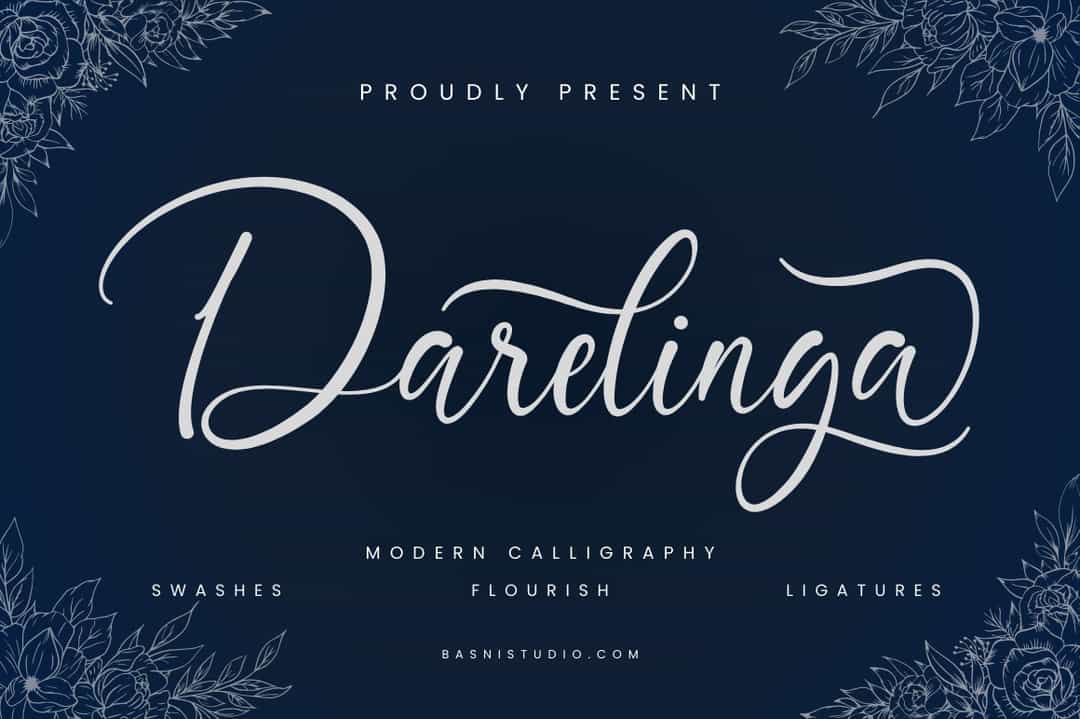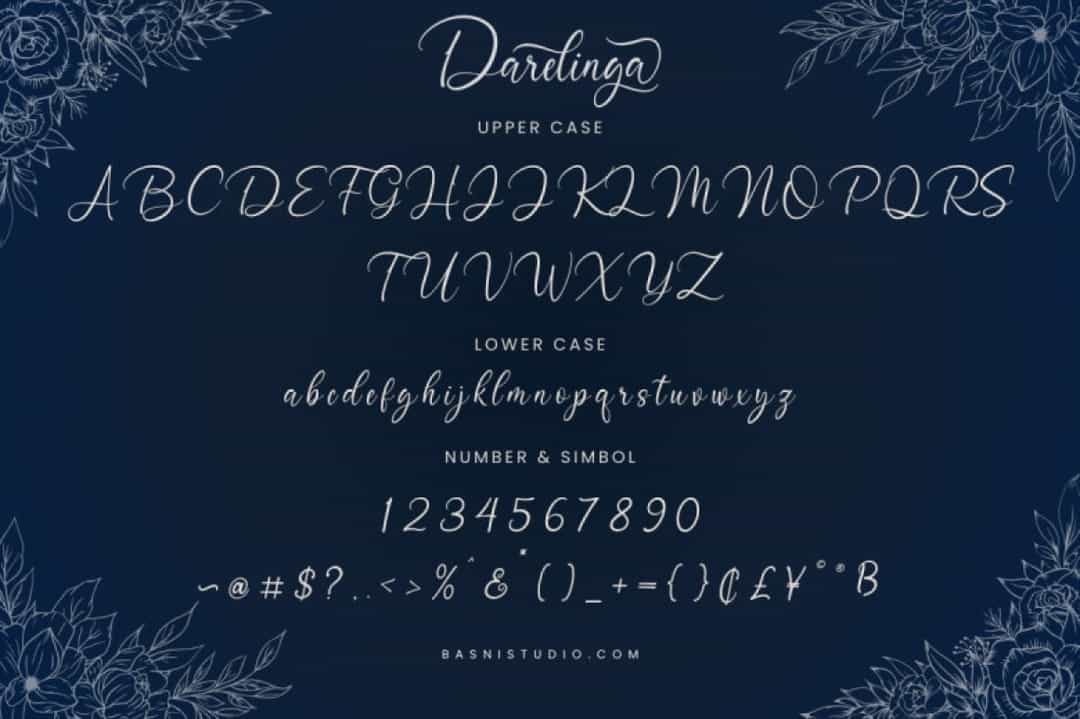
Darelinga is a modern calligraphy script font, made with Naturaly & precision for branding, websites and editorial projects. Consists of all the Characters letters, multilingual support, all the punctuations, and binding. All of these can be found and used with ease if the software being used supports OpenType.